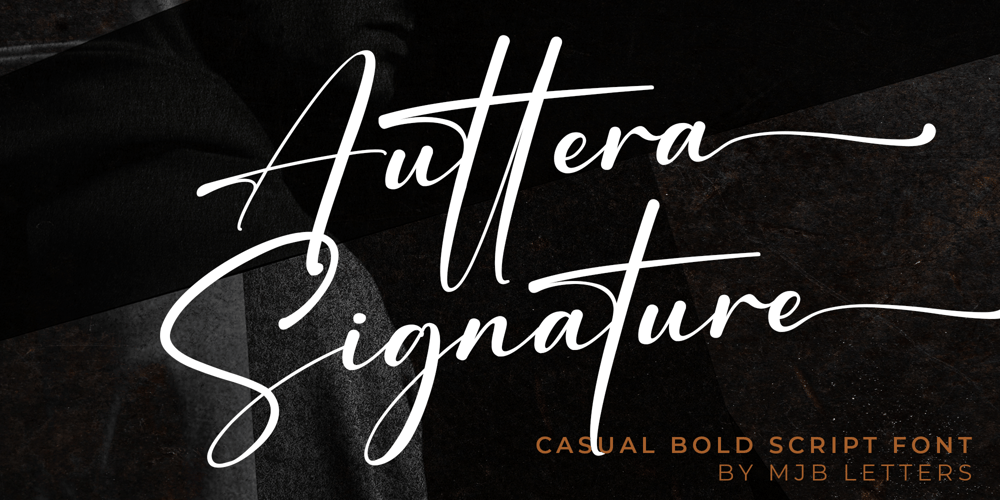
Auttera Signature
Auttera Signature font
Auttera Signature Font Family was designed by Muhammad Mujibulloh and published by MJB Letters. Auttera Signature contains 1 styles and family package options. Auttera Signature is a bold script font with a casual style and modern concept, this font has an attractive ligature and beginning and ending swash that can make the design more attractive.To enable the OpenType Stylistic alternates, you need a program that supports OpenType features such as Adobe Illustrator CS, Adobe Indesign & CorelDraw X6-X7.There are additional ways to access alternates, using Character Map (Windows), Nexus Font (Windows), Font Book (Mac) or a software program such as PopChar (for Windows and Mac).